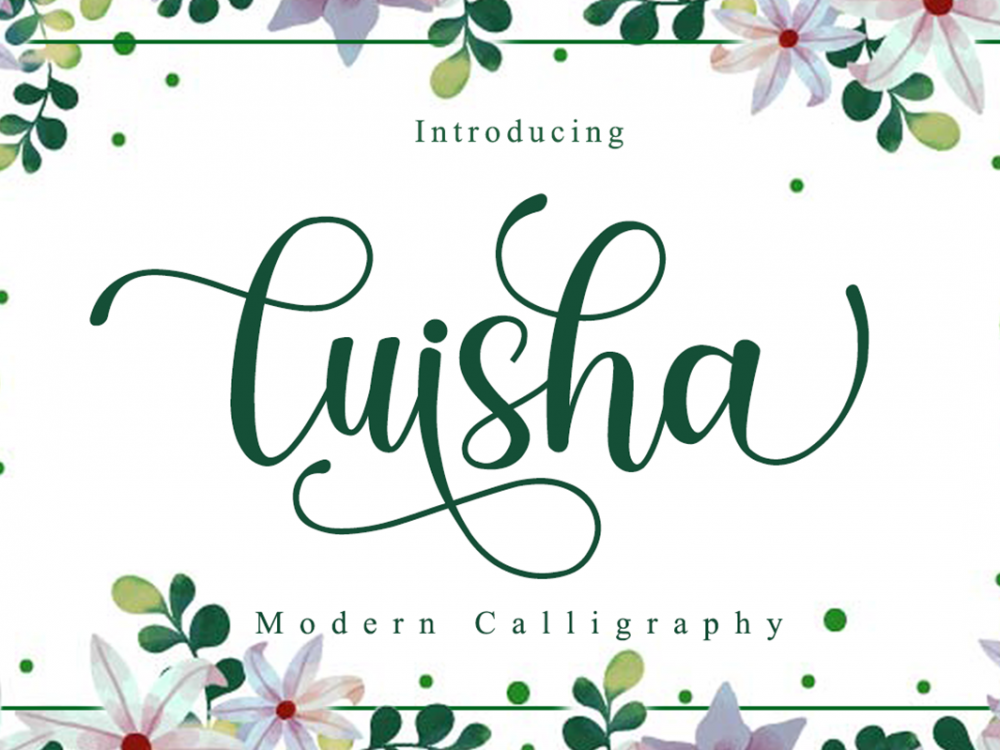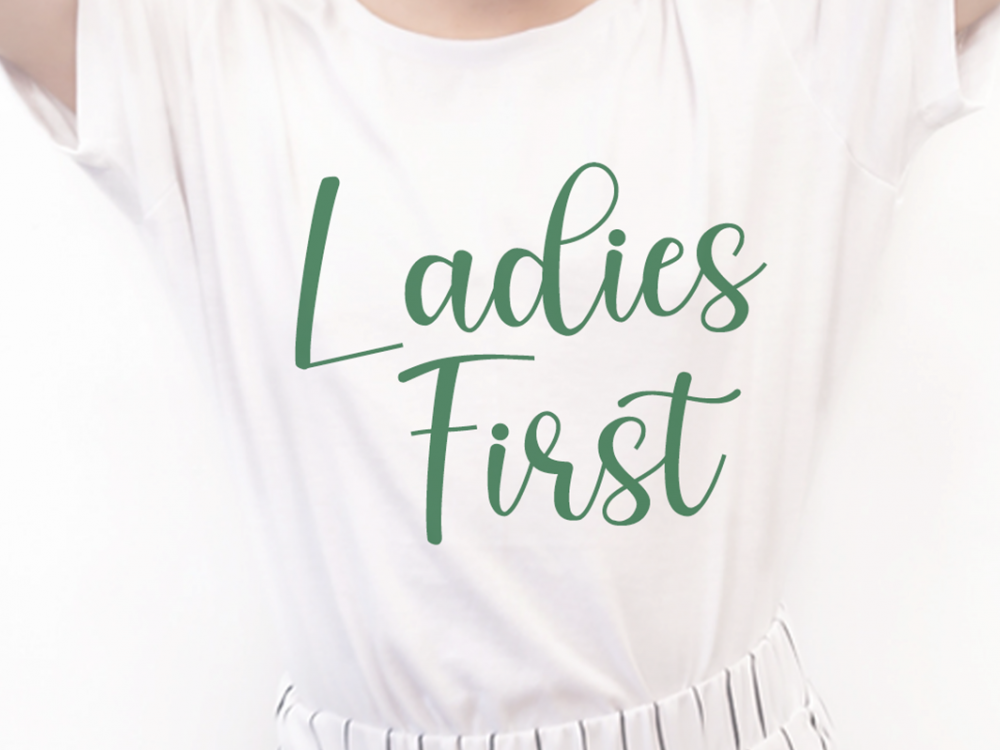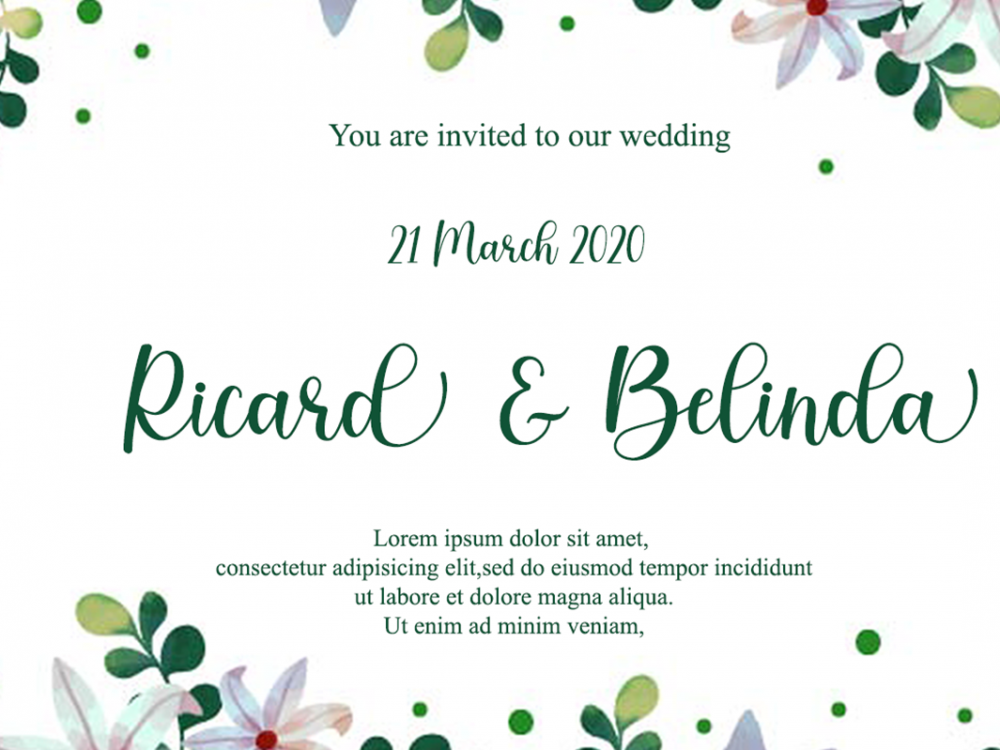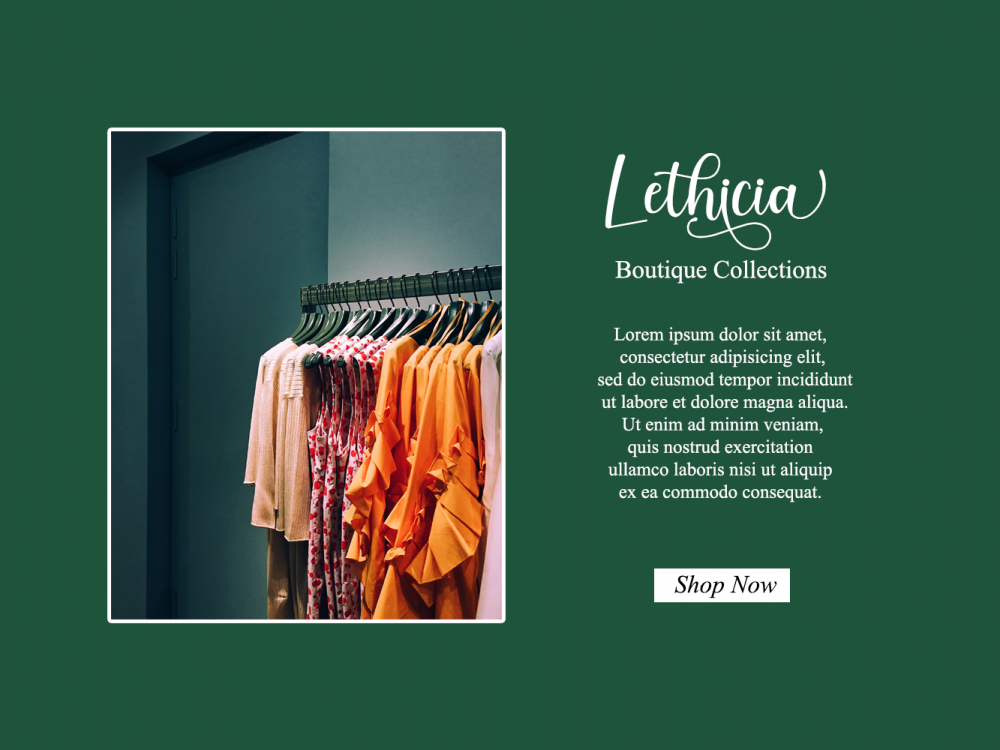
Luisha Free Font
Luisha Free Font is an interesting modern handwritten typeface featuring a calligraphic curly typeface. This font is great for creating various projects that require a scripted curly font. You can use this font to create memorable posters, wedding invitations, greeting cards, branding, flyers, t-shirt and pillow prints, and more. Improve the quality and increase the popularity of your design projects by using this font. If you like it don’t forget to check out the full version.